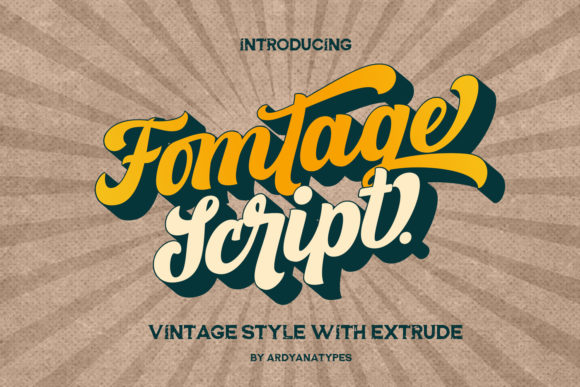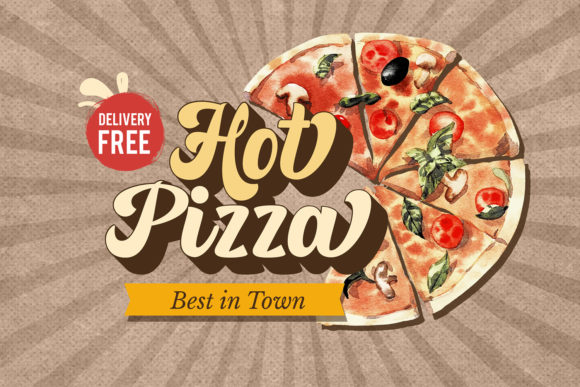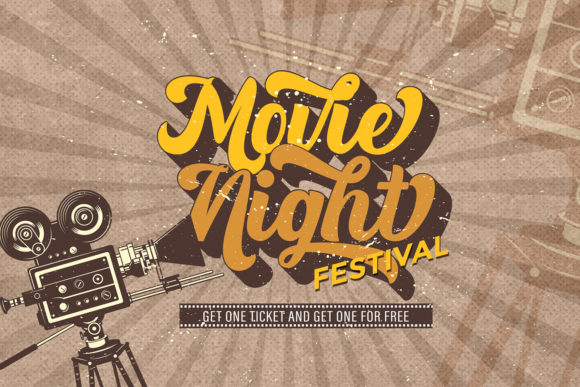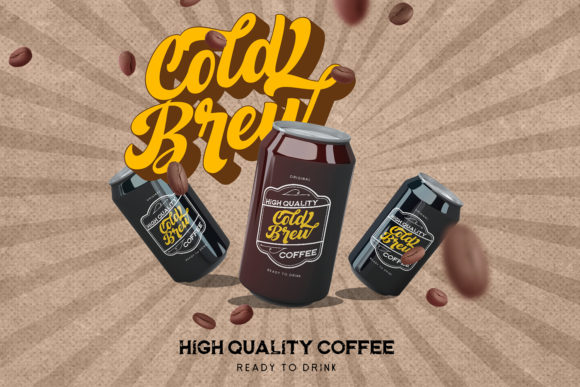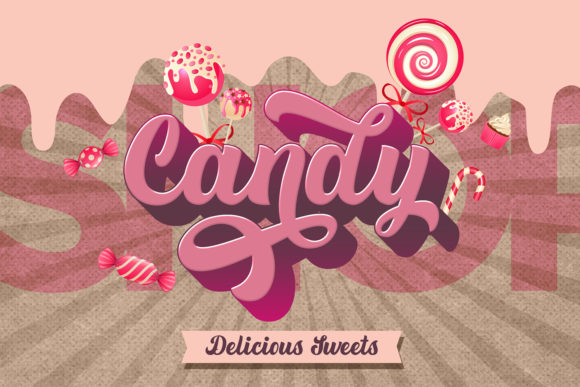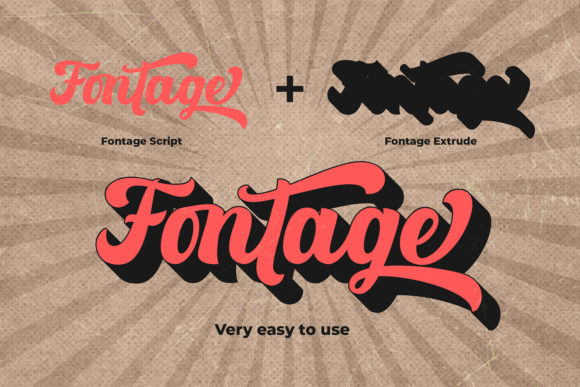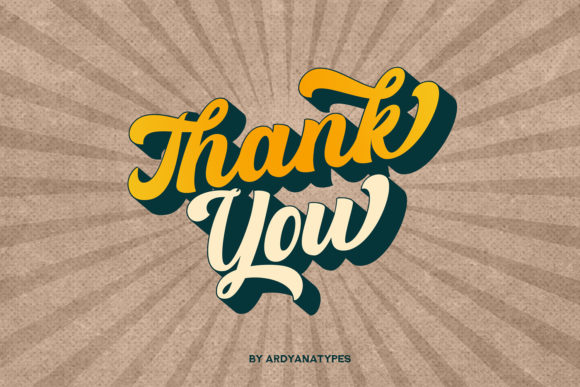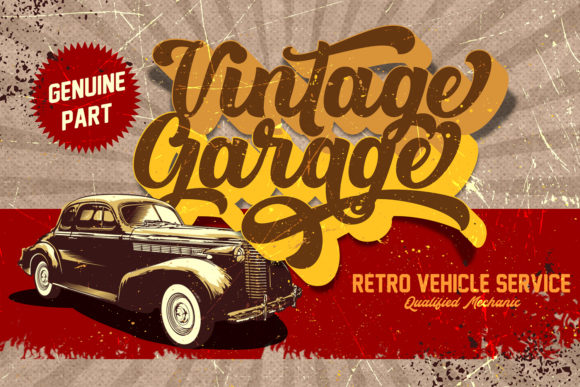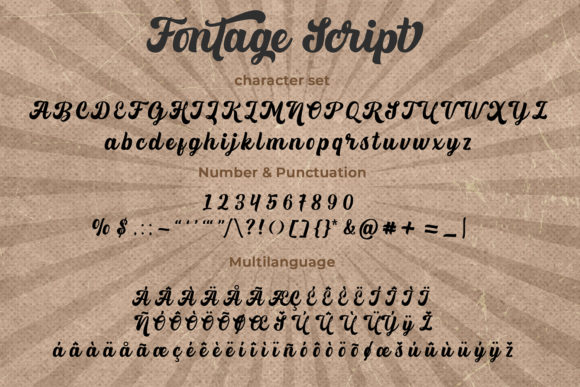
Fomtage Script Font
About Fomtage Script Font
Fomtage Script feels playfully nostalgic and delivers an incredible vintage aesthetic. Use this handwritten font to add that special retro touch to any design idea you can think of!